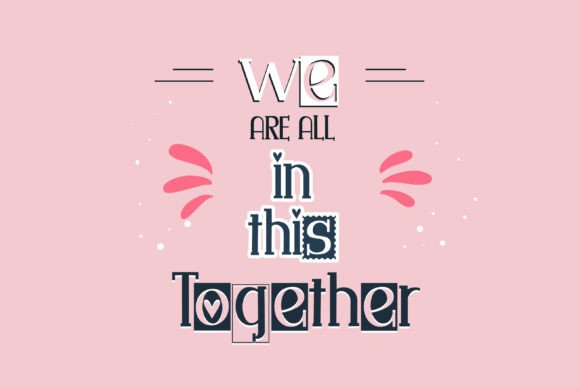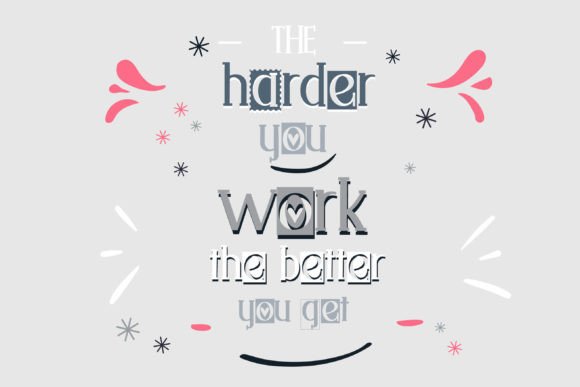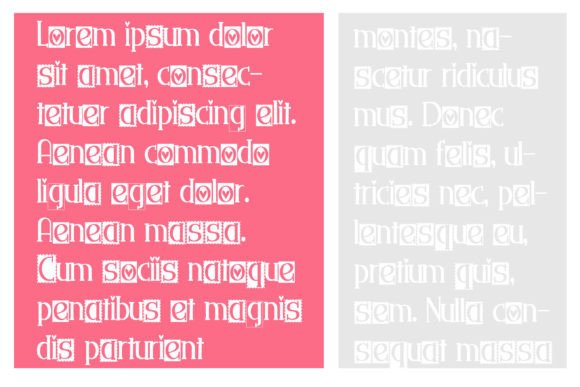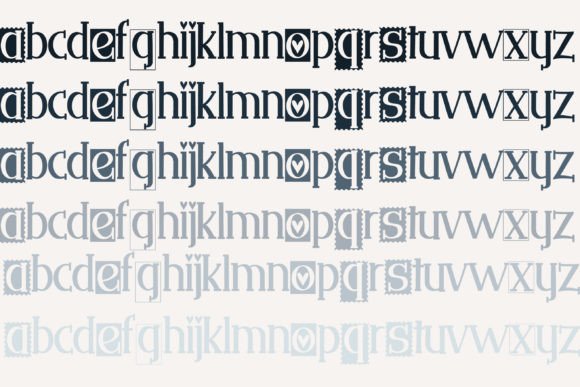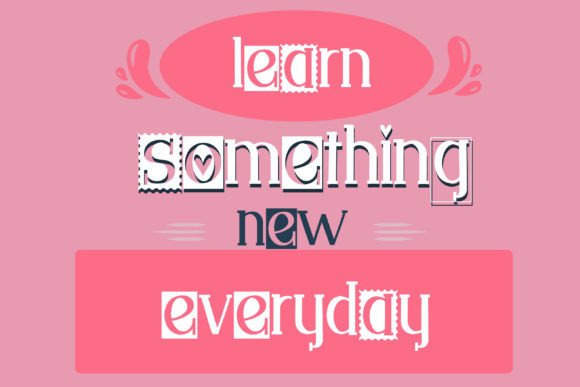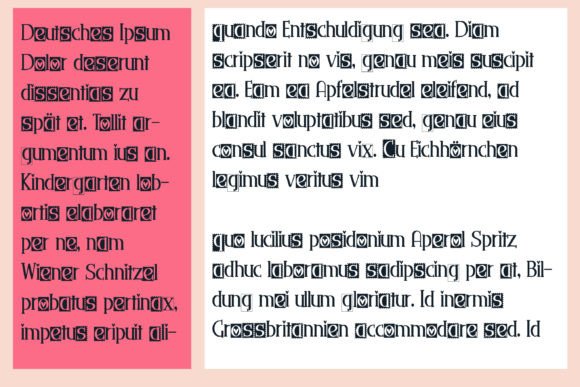
Champion of Love Font: The Perfect Choice for Love-Themed Designs
Are you looking for a font that exudes romance and love? Look no further than the Champion of Love Font. This beautiful serif font is adorned with tiny hearts, making it perfect for love-themed projects, wedding invitations, and Valentine’s Day designs. In this article, we’ll dive into the details of this stunning font and explore its features, uses, and benefits.
What is Champion of Love Font?
Champion of Love Font is a serif font with a romantic twist. Each character is carefully crafted with tiny hearts, giving it a unique and charming appearance. The font is designed to evoke feelings of love and affection, making it ideal for projects that require a touch of romance.
Key Features of Champion of Love Font
- Romantic Design: The font features tiny hearts that adorn each character, giving it a romantic and whimsical feel.
- Serif Font: The font is a serif font, which means it has small lines or flourishes at the ends of the letters.
- Love-Themed: The font is perfect for love-themed projects, including wedding invitations, Valentine’s Day designs, and romantic messages.
- Versatile: The font can be used for a variety of projects, including digital and print designs.
Uses of Champion of Love Font
Champion of Love Font is perfect for a variety of projects that require a romantic touch. Here are some ideas:
- Wedding Invitations: Use the font to create beautiful and romantic wedding invitations that will set the tone for the big day.
- Valentine’s Day Designs: Create stunning Valentine’s Day designs, including cards, posters, and social media graphics.
- Love-Themed Stationery: Use the font to create love-themed stationery, including notebooks, journals, and greeting cards.
- Digital Designs: Use the font to create digital designs, including social media graphics, blog posts, and email newsletters.
Benefits of Using Champion of Love Font
Using Champion of Love Font offers several benefits, including:
- Unique Design: The font’s unique design will help your project stand out from the crowd.
- Emotional Connection: The font’s romantic design will help create an emotional connection with your audience.
- Versatile: The font can be used for a variety of projects, including digital and print designs.
Tips for Using Champion of Love Font
Here are some tips for using Champion of Love Font:
- Use it Sparingly: Use the font sparingly to avoid overwhelming your design.
- Pair it with Other Fonts: Pair the font with other fonts to create a unique and interesting design.
- Have Fun: Most importantly, have fun and be creative!
Champion of Love Font is a beautiful serif font with a romantic twist that’s perfect for love-themed projects, wedding invitations, and Valentine’s Day designs. Its unique design, versatility, and ease of use make it a great choice for designers and crafters. With these tips and ideas, you’ll be able to create stunning designs that will capture the hearts of your audience.